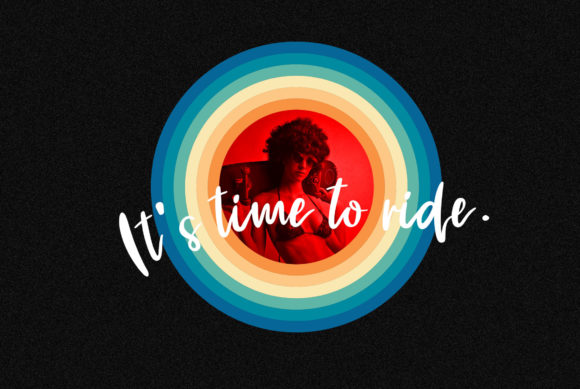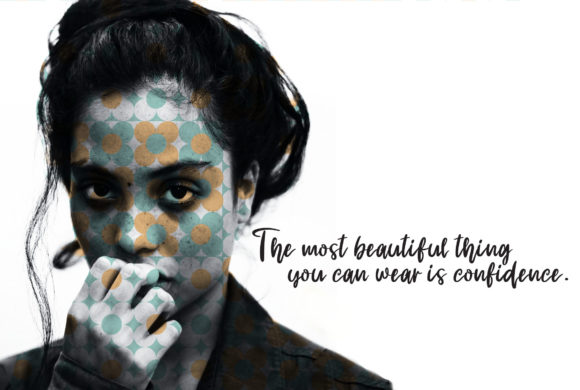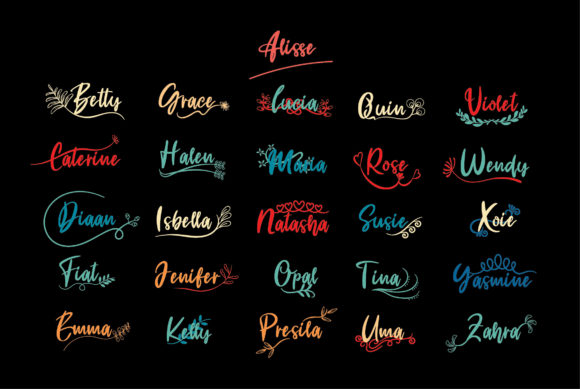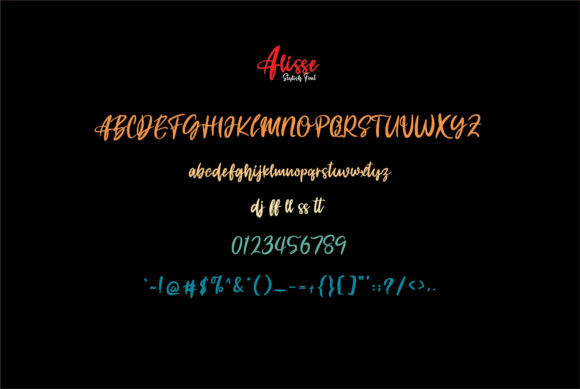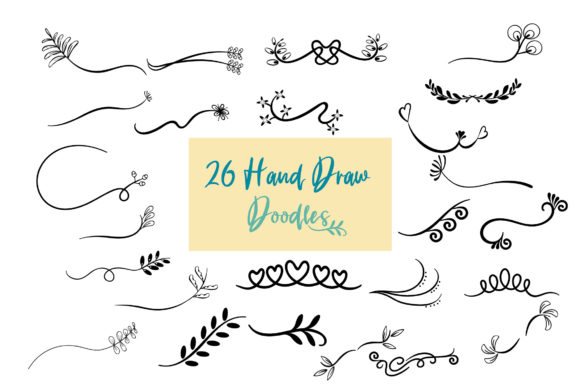
Alisse Font
About Alisse Font
Alisse is a beautiful light handwritten font with a unique feel and a stunning impact. It will add a luxury spark to any design project that you wish to create!